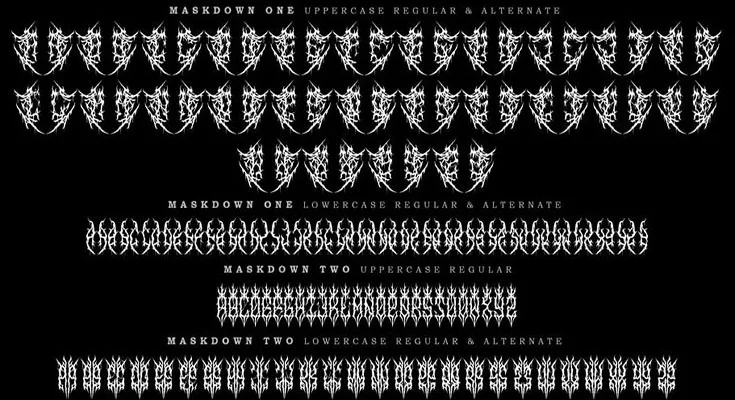
Maskdown Font is a carefully crafted typeface, with a very heavy black metal feel. You can use it for posters, headers, flyers, branding, merchandise, and more.
The font’s smooth curves and sharp edges give it a contemporary feel that appeals to a wide audience. It can adapt to different moods and themes, making it a versatile choice for designers.
Its simplicity and versatility make it a great addition to any designer’s toolkit, ensuring your projects look polished and professional.
With its clean, modern, and highly legible design, it effortlessly strikes a balance between elegance and readability.
This type of font is perfect for magazines, mug designs, and many other design needs. It is also perfect for creating a variety of text designs, such as wedding invitations, social media posters, headers, titles, wallpapers, and gift cards. Additionally, you can easily use this font for letterheads, invoices, and other documents.